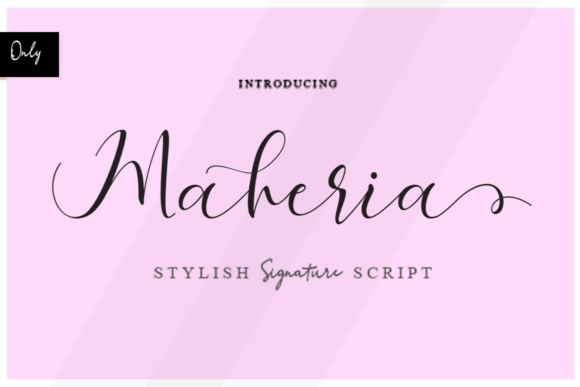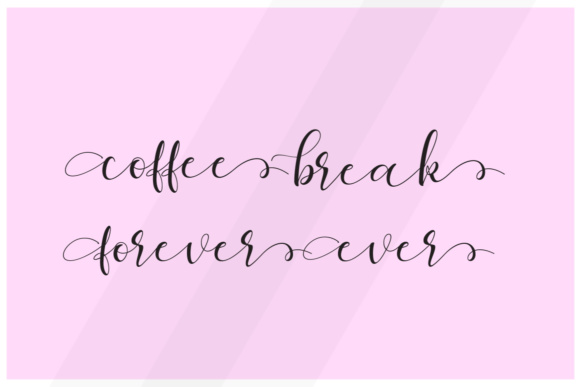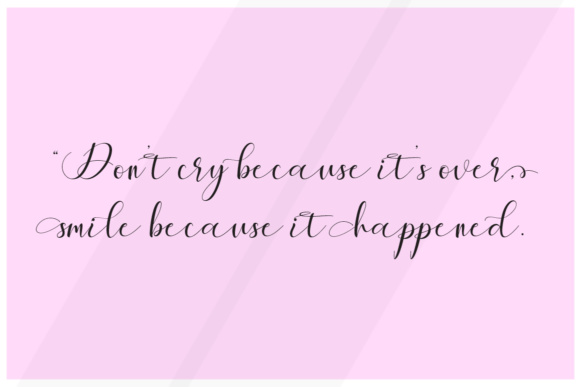
Maheria Script Font
The Maheria is a modern calligraphy font with a beautiful handwritten style. It’s perfect for every design that needs a elegant touch.